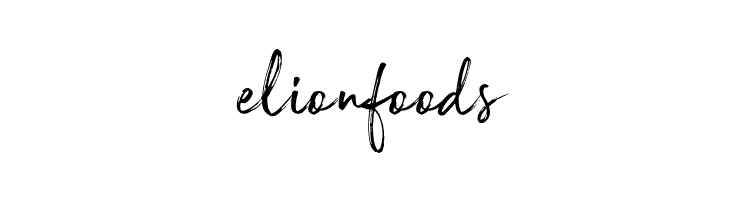
A unique, artistic, and condensed font with playful curves and angles.
A sleek, italic, and condensed font with moderate stroke contrast.
A bold, decorative font with artistic and dynamic character designs.
A dynamic, expanded italic font with smooth strokes and moderate contrast.
A playful, bold italic font with rounded characters and whimsical flourishes.
A dynamic, italicized font with a calligraphic influence and smooth, flowing curves.
A bold, decorative font with a unique shadow effect and playful style.
A bold, italicized font with a shadow effect, offering a modern and decorative style.
A bold, graffiti-inspired font with dynamic and energetic strokes.
A decorative blackletter font with ornate, gothic-inspired letterforms.
A playful and elegant script font with flowing, interconnected letters.
A graceful, handwritten font with elongated, flowing characters.
A flowing, elegant script font with smooth, rounded edges and consistent stroke width.
A lively, expressive script font with flowing cursive letters.
An elegant, flowing script font with a delicate, handwritten appearance.
An elegant cursive script font with flowing lines and intricate details.
A bold, geometric font with strong, angular lines and a modern, industrial feel.
A bold, geometric outlined font with a modern and edgy style.
A bold, futuristic font with angular, geometric shapes and a modern aesthetic.
A bold, oblique font with a futuristic and dynamic style.
A bold, futuristic font with geometric shapes and angular design.
A bold, modern font with geometric shapes and sharp angles.
A dynamic, brush-style font with expressive strokes and an artistic flair.
A bold, decorative font with a three-dimensional effect and strong visual impact.
A bold, modern, and geometric font with a condensed structure.
A flowing, cursive script font with elegant loops and a modern appeal.
A bold, rounded font with a playful and modern style.
A bold, playful font with exaggerated curves and a cartoonish style.
A bold, geometric font with sharp angles and modern design.
A bold, geometric font with sharp angles and a modern aesthetic.
A bold, italicized typeface with a dynamic and modern style.
A bold, italic font with sharp angles and a modern, dynamic style.
A classic serif font with elegant strokes and refined details.